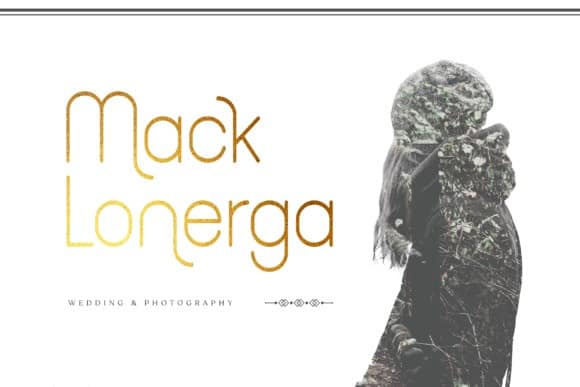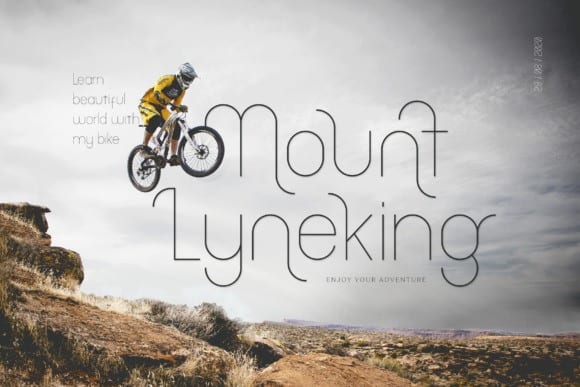
Introducing Trellacote Sans Serif Font is the next generation of typeface with classic feel that inspired from retro, vontage style, old advertising and signage letters.Made from font designer named Namara Creative Studio. Modern sans serif font with 4 styles: Light, Light Italic, Regular and Italic. Trellacote comes with many variant alternates of glyphs, ligatures and special PUA characters. It’s perfect for posters, business cards, logos, social media, magazine covers and any project with suitable purpose.